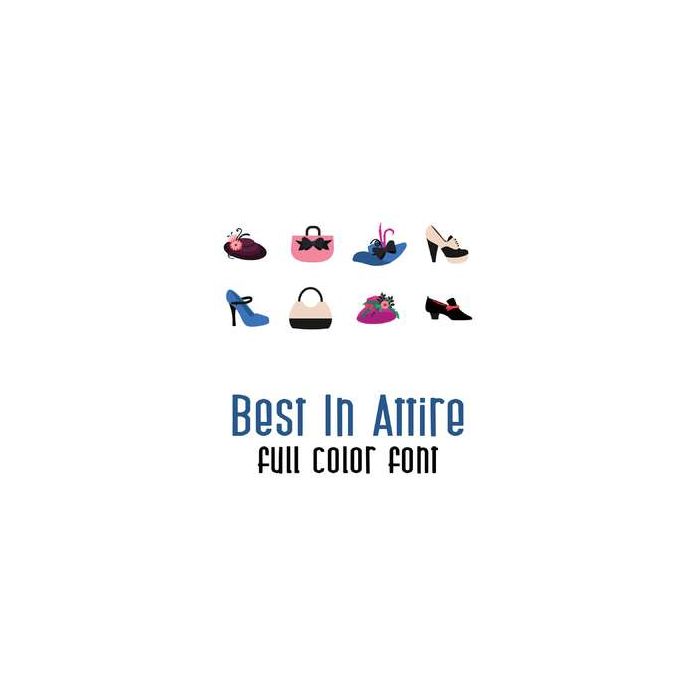
A full-color font stores svg data inside an Open Type font file. This font will look black if not used in a program like Silhouette Studio which is compatible.
This doodlebat font contains 26 different fashionable hats, shoes and purses, perfect for all your crafting needs. Use these images in your planner stickers, scrap book pages, decor, crafts cards, parties and more! Perfect for Mother's Day!